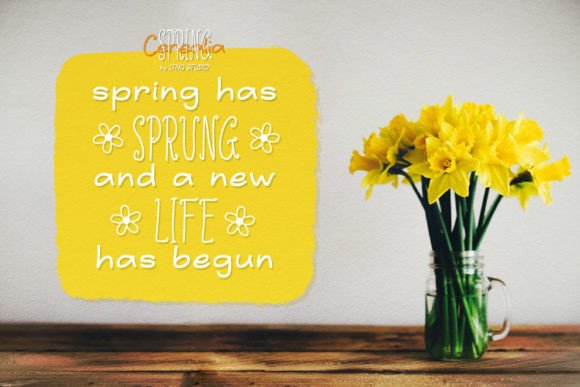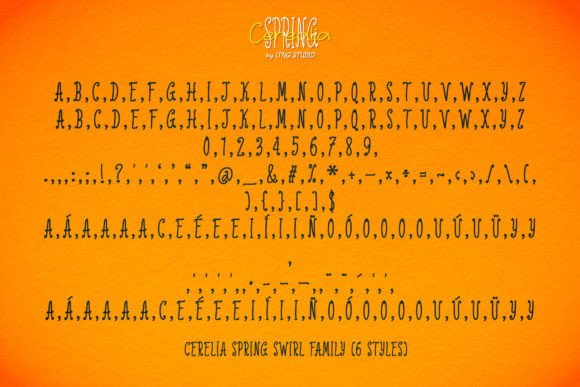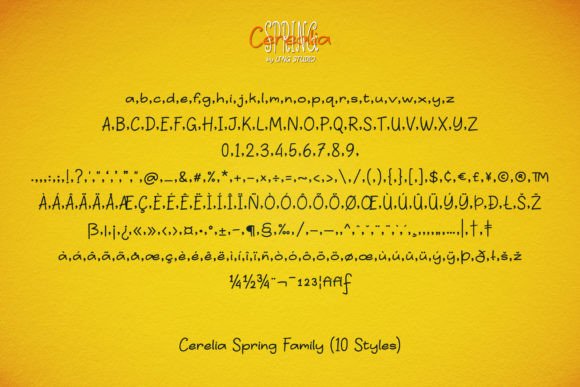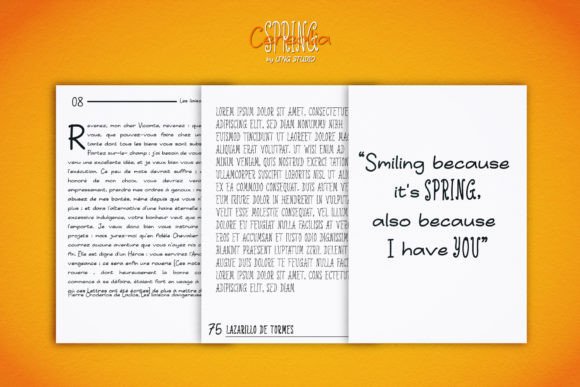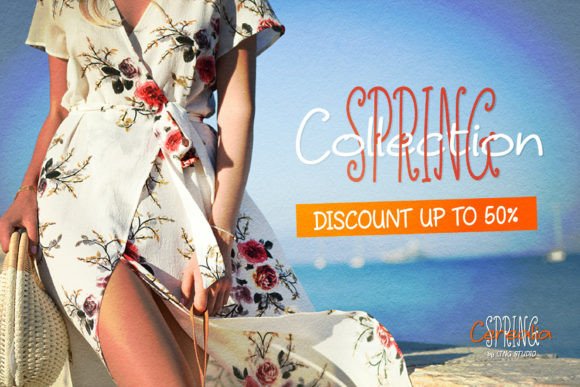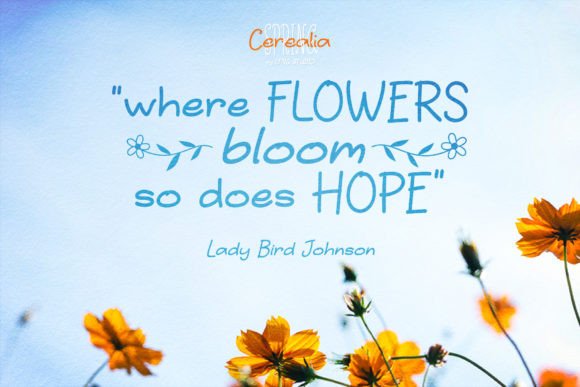
Spring into Creativity with Cerealia Spring Handwritten Duo Font
Have you ever found yourself stuck in a creative rut, yearning for a spark to ignite your next design project? Maybe it’s the changing of the seasons that’s got you feeling restless, or perhaps you’re just looking for a fresh way to express yourself. Whatever the case, we’re excited to introduce you to Cerealia Spring Handwritten Duo Font – a charming and playful font duo that’s sure to bring a touch of whimsy to your designs.
This delightful font duo features a cute, simple, and clean handwritten font, paired with a condensed swirl handwritten font that’s just begging to be used in all sorts of creative ways. Whether you’re designing a spring-themed project or just looking for a way to add some visual interest to your work, Cerealia Spring Handwritten Duo Font is the perfect addition to your toolkit.
• Handwritten Duo Font: Includes two unique handwritten fonts, Cerealia Spring and Cerealia Spring Duo, with different styles and characteristics
• Professional and Casual: Suitable for both professional and casual projects, such as branding, advertising, and editorial design
Cerealia Spring Handwritten Duo Font Review
I recently had the chance to work with Cerealia Spring Handwritten Duo Font, and I must say, it’s a unique and charming addition to any design project. ✨ The font’s whimsical, handwritten feel is perfect for creating a warm and inviting atmosphere, making it ideal for greeting cards, social media posts, or any other application where a personal touch is needed. The pairing of two distinct styles within the same font family is a nice touch, offering flexibility in terms of design choices.
• ✨ Beautifully crafted, handwritten characters that add a touch of personality to any design
• ✨ Suitable for a wide range of applications, from social media to print materials
• ✨ Easy to read, even in smaller font sizes
However, I did encounter a few limitations with this font. ⚠️ The font’s irregularities can sometimes make it difficult to pair with other fonts, as the mismatch in style can be jarring. Additionally, the font’s uniqueness can be a double-edged sword – while it adds character to a design, it may not be suitable for more formal or professional applications.
Overall, I would recommend Cerealia Spring Handwritten Duo Font for designers looking to add a touch of personality to their projects. While it may not be the best choice for every design, it’s a great option for those seeking a unique and whimsical feel.